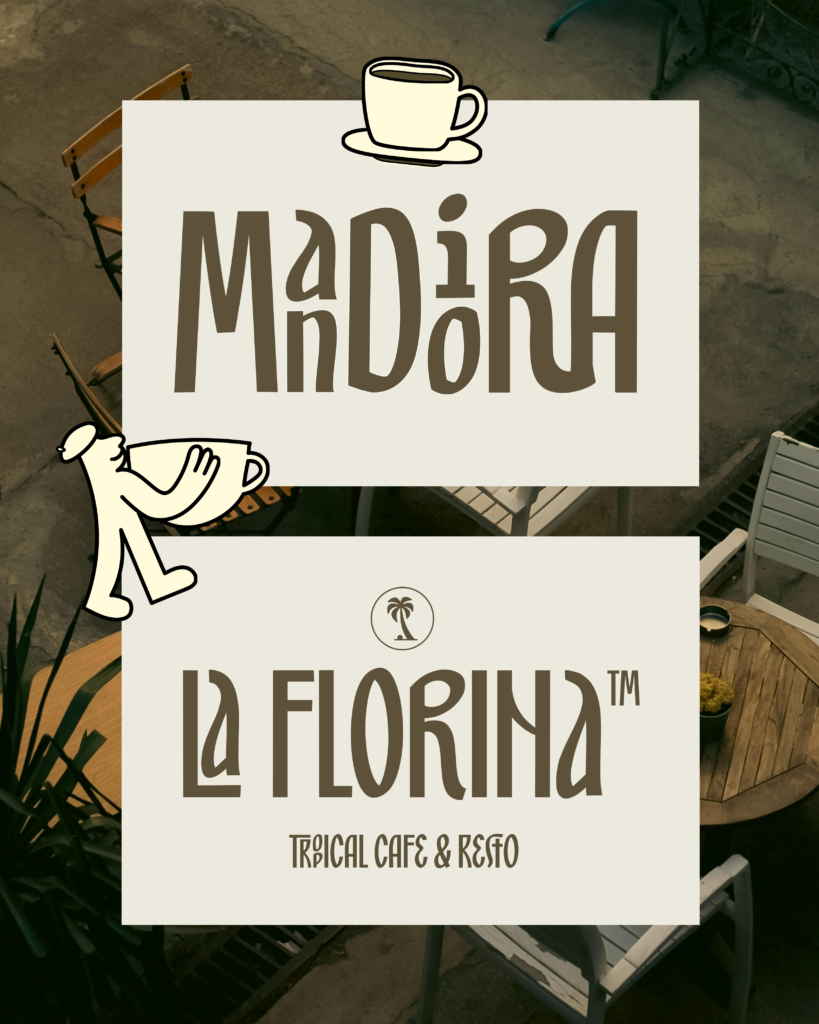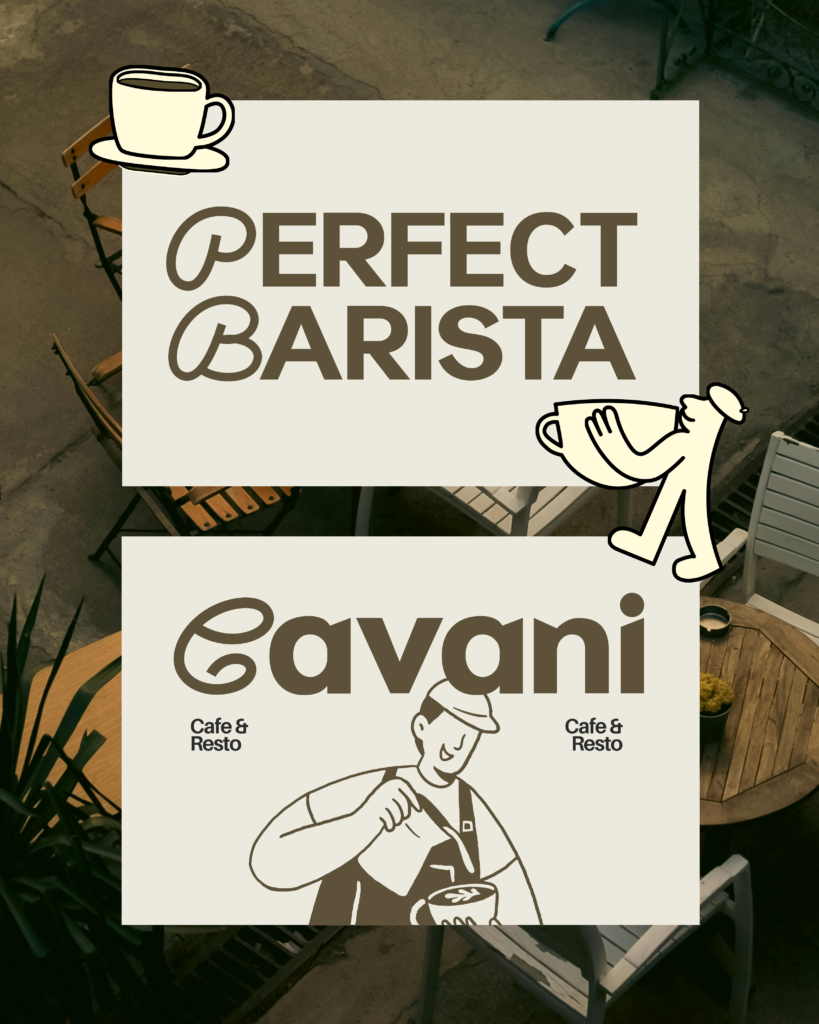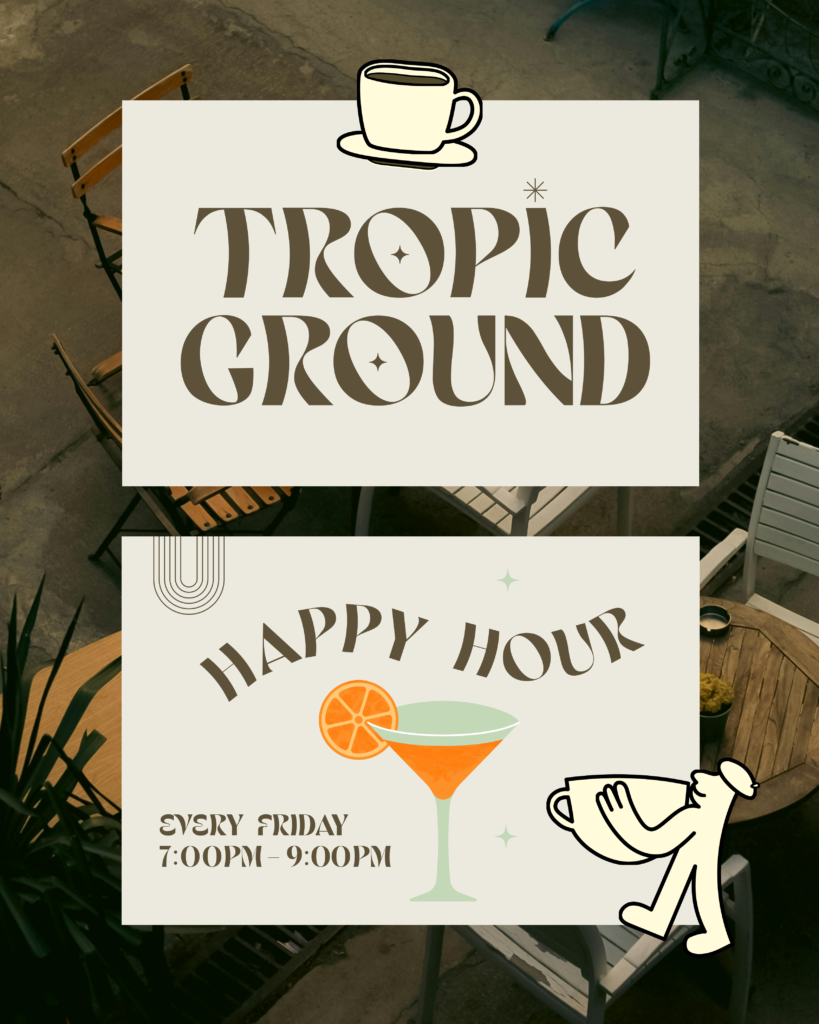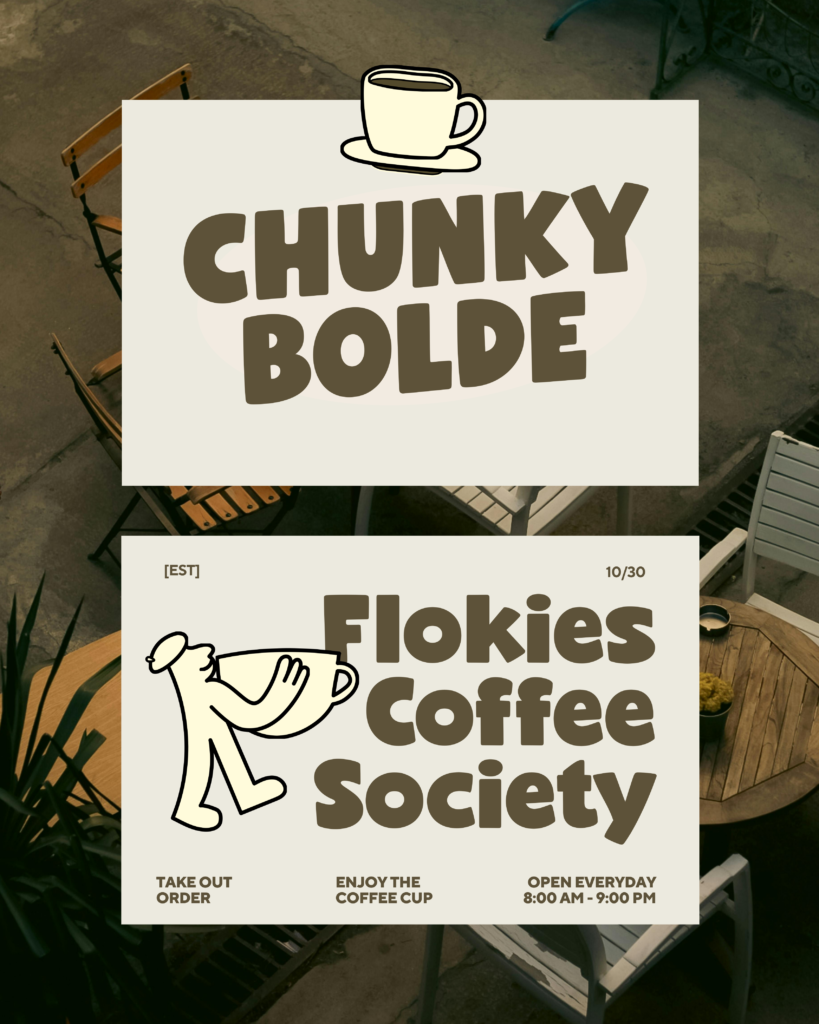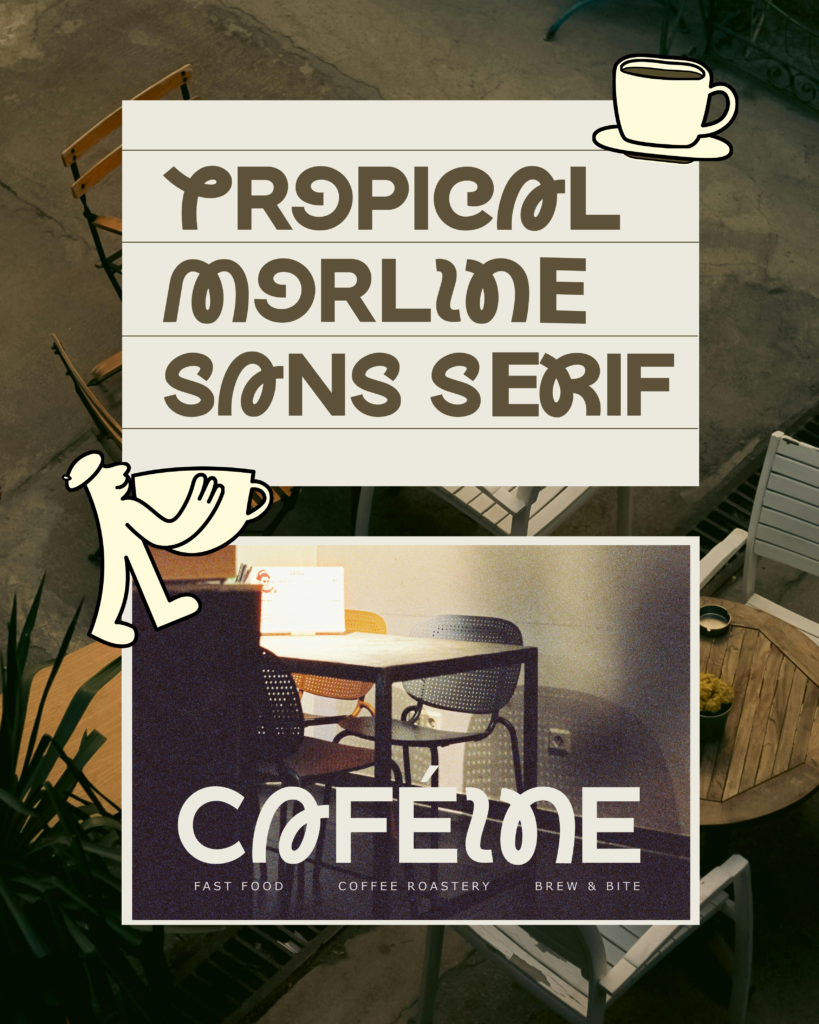
Creating a strong café brand isn’t just about great coffee—it’s also about how your brand looks and feels. One of the most powerful elements of visual identity is typography. The right café font can instantly communicate warmth, quality, and personality to your customers.
In this article, we’ll explore five beautiful café fonts—Mandiora, Perfect Barista, Tropic Ground, Chunky Bolde, and Tropical Morline—and how you can use them to elevate your coffee shop branding.
☕ Why Fonts Matter for Café Branding
Typography plays a huge role in shaping customer perception. Whether you run a cozy neighborhood coffee shop or a modern espresso bar, your font choice can:
• Build a recognizable brand identity
• Create emotional connection (cozy, premium, fun, tropical, etc.)
• Improve readability for menus and signage
• Enhance your social media presence
Choosing the right café font helps your brand stand out in a competitive market.
✍️ 1. Mandiora – Unique & Artistic Touch
Mandiora is a stylish and unique font that brings a refined artistic feel to café branding.
Best for:
• Café logos
• Premium packaging
• Instagram posts
Why it works:
Mandiora’s smooth curves and expressive strokes make it perfect for cafés that want to appear high-end and aesthetic. It pairs beautifully with minimalist layouts and soft color palettes.
☕ 2. Perfect Barista – Authentic Coffee Vibes
As the name suggests, Perfect Barista captures the essence of handcrafted coffee culture.
Best for:
• Menu design
• Coffee packaging
• Branding materials
Why it works:
This font feels natural and handmade, making it ideal for artisan coffee shops. It gives your brand an authentic, welcoming vibe—just like a perfectly brewed cup of coffee.
🌴 3. Tropic Ground – Relaxed & Tropical Feel
Tropic Ground brings a fresh and laid-back tropical energy to your designs.
Best for:
• Beach cafés
• Summer promotions
• Lifestyle branding
Why it works:
With its relaxed style, Tropic Ground is perfect for brands that want to communicate chill, vacation-like vibes. It’s especially effective for cafés in tourist areas or tropical-themed concepts.
🔥 4. Chunky Bolde – Bold & Eye-Catching
If you want your brand to stand out instantly, Chunky Bolde is a great choice.
Best for:
• Signage
• Headlines
• Posters & promotions
Why it works:
Its bold and thick letterforms create strong visual impact. Chunky Bolde is perfect for cafés with a modern, playful, or urban identity.
🌿 5. Tropical Morline – Family Font Clean with a Natural Twist
Tropic Morline combines modern simplicity with subtle organic elements.
Best for:
• Logo design
• Menu typography
• Branding systems
Why it works:
This font offers a clean yet warm aesthetic, making it versatile for many café styles—from minimalist to nature-inspired concepts.
🎨 Tips for Choosing the Right Café Font
To get the best results, keep these tips in mind:
1. Match Your Brand Personality
• Unique café → Mandiora
• Artisan coffee → Perfect Barista
• Tropical vibe → Tropic Ground
• Bold & modern → Chunky Bolde
• Clean & natural → Tropical Morline
2. Combine Fonts Wisely
Use one font for headings and another for body text to create hierarchy and balance.
3. Prioritize Readability
Make sure your fonts are easy to read, especially for menus and signage.
🚀 Final Thoughts
Your font choice can make or break your café branding. Whether you want something elegant, cozy, bold, or tropical, fonts like Mandiora, Perfect Barista, Tropic Ground, Chunky Bolde, and Tropic Morline offer a wide range of styles to suit your vision.
Take the time to experiment and find the perfect combination that reflects your café’s personality. Because in branding—just like coffee—the details make all the difference.